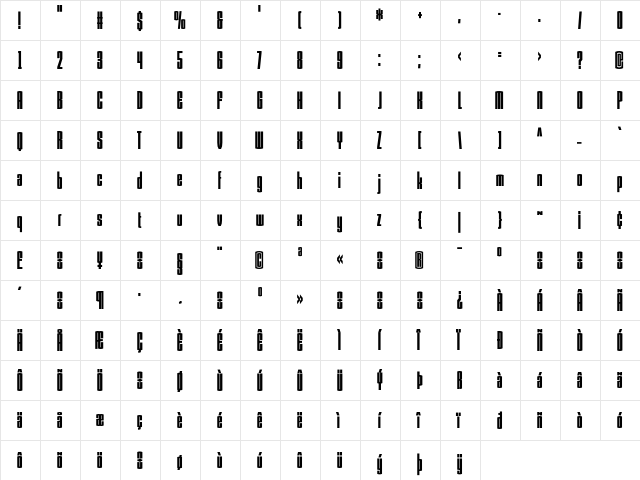
Armada BoldCompressed
Design Context for Armada Typeface
Armada takes a measured approach to typography — its balanced proportions and neutral character make it a reliable workhorse for both digital and print work. The heavy weight commands attention and anchors typographic hierarchies.